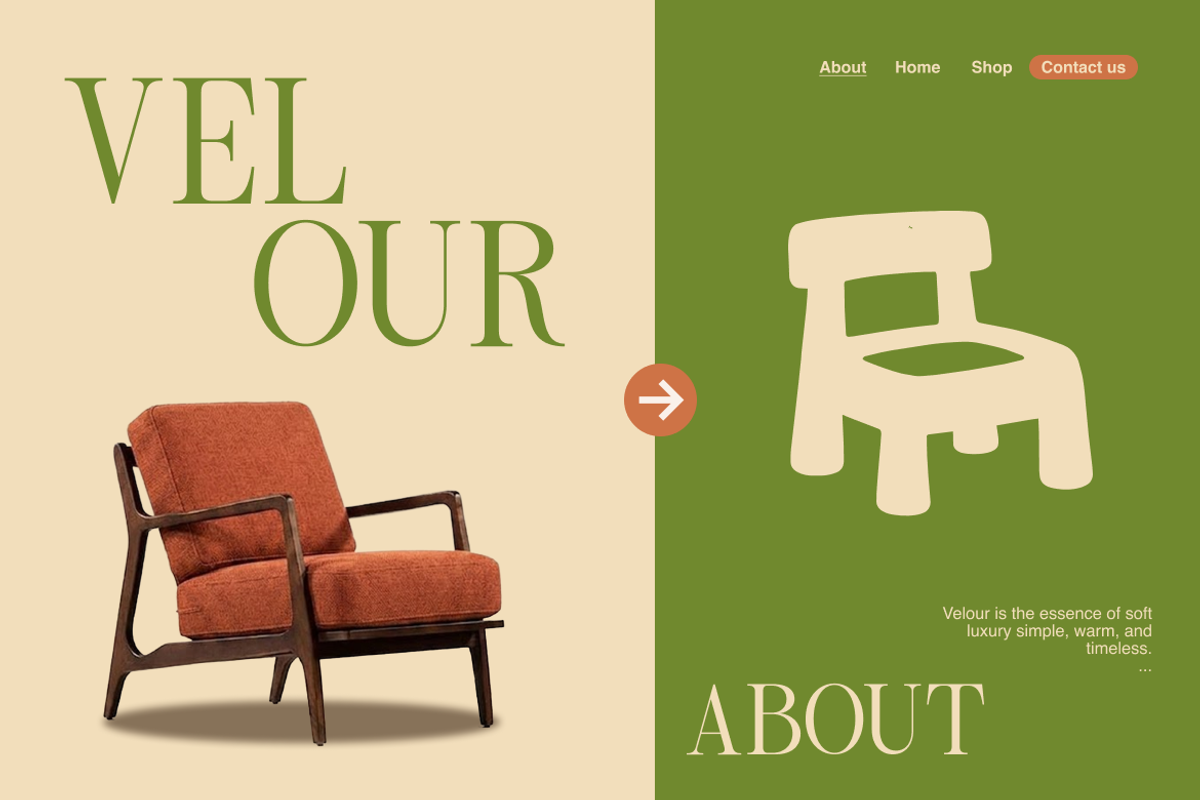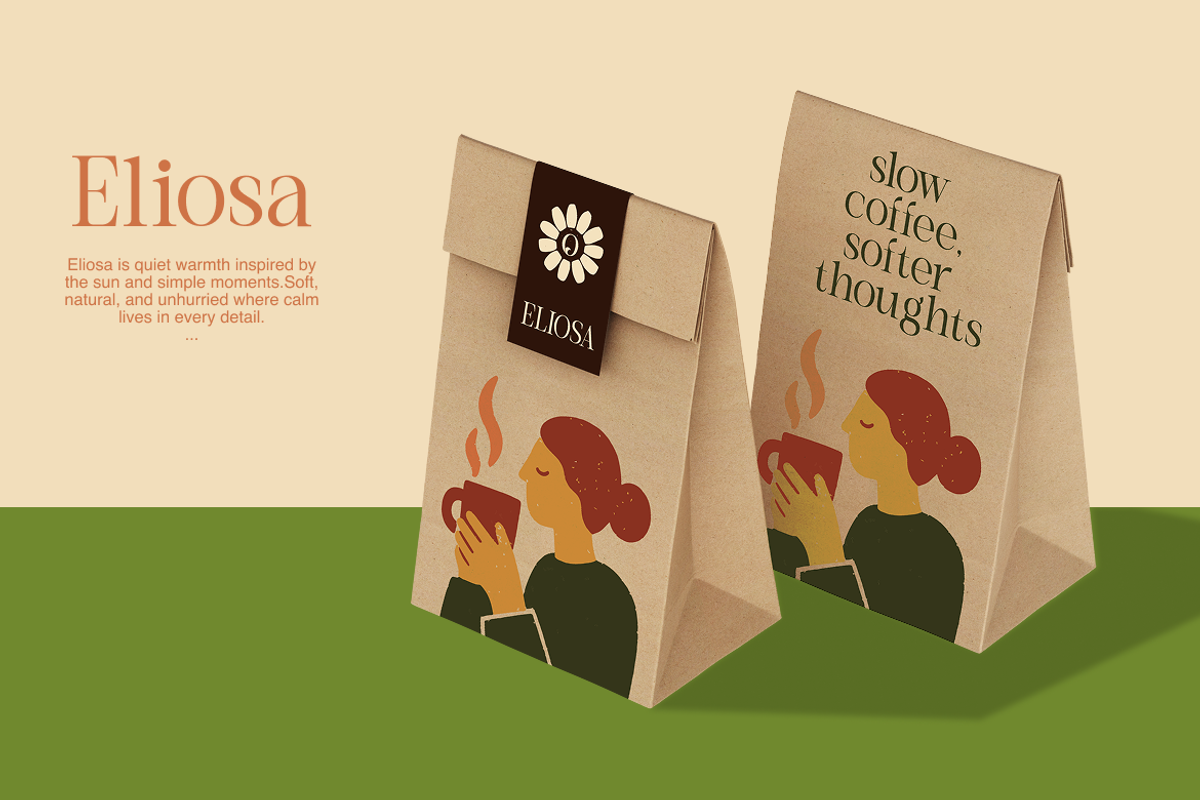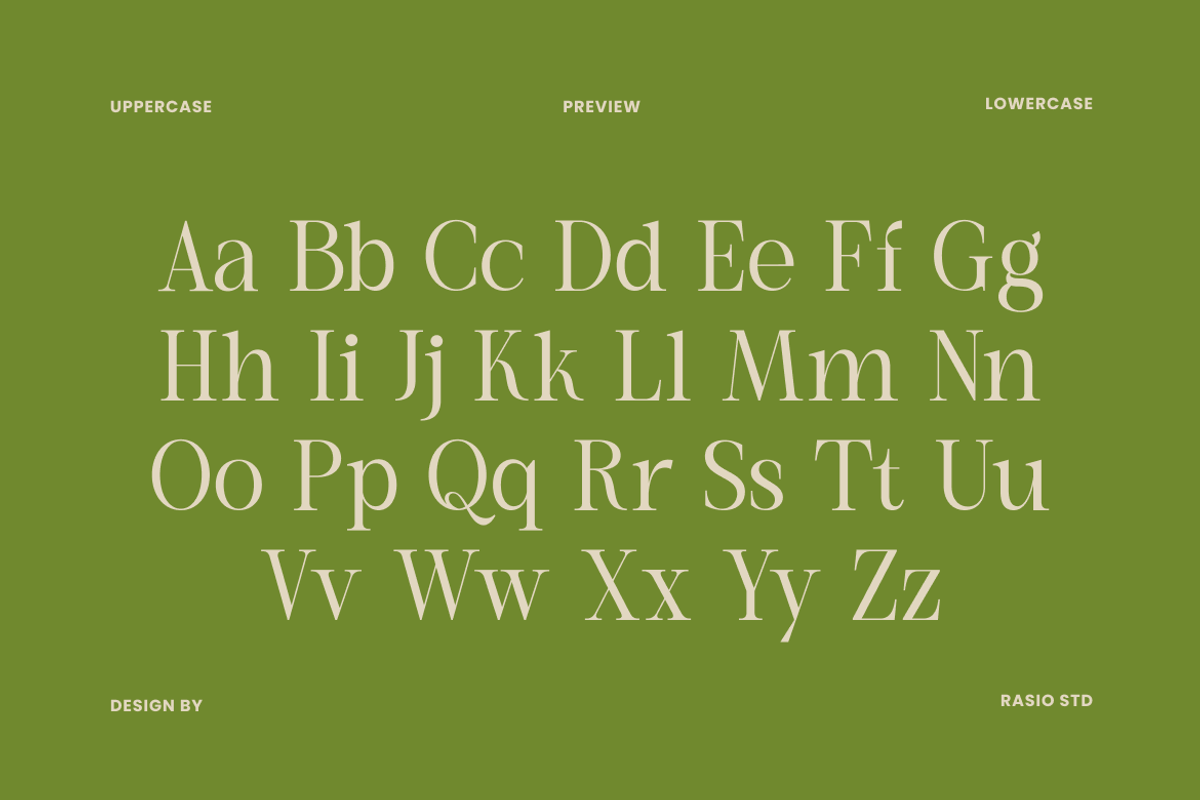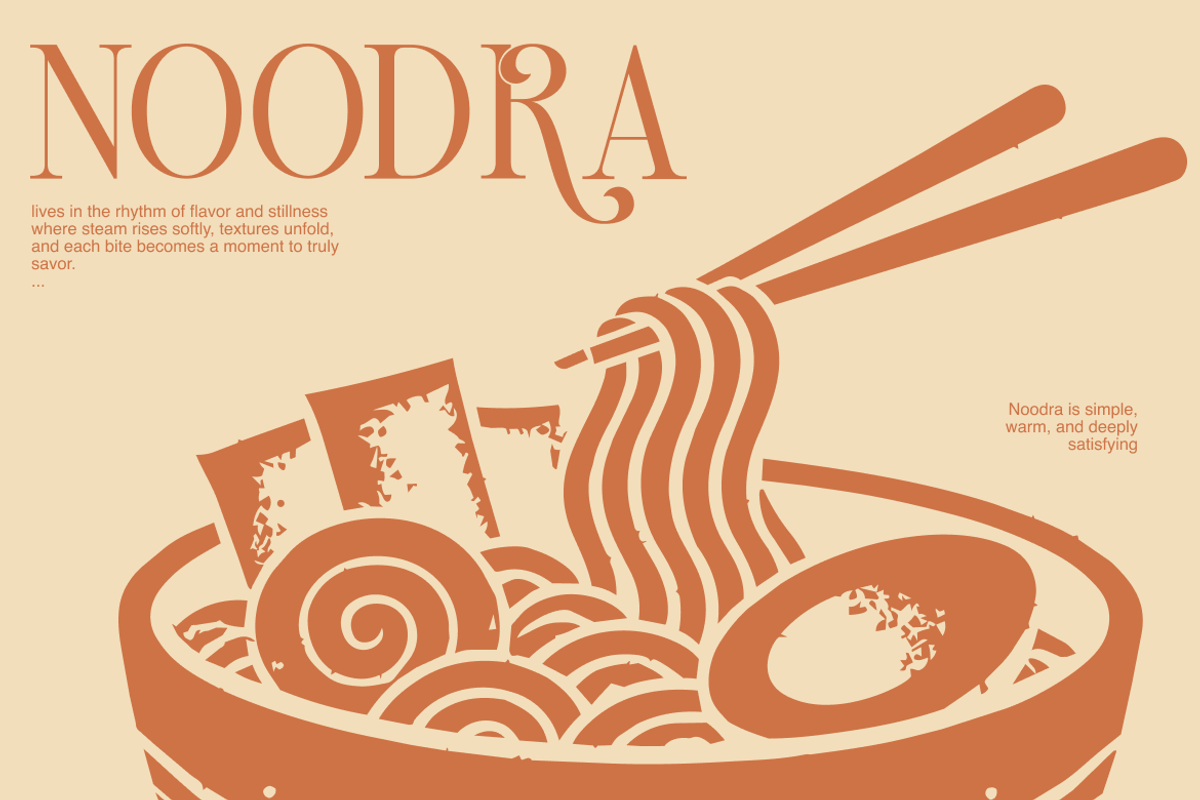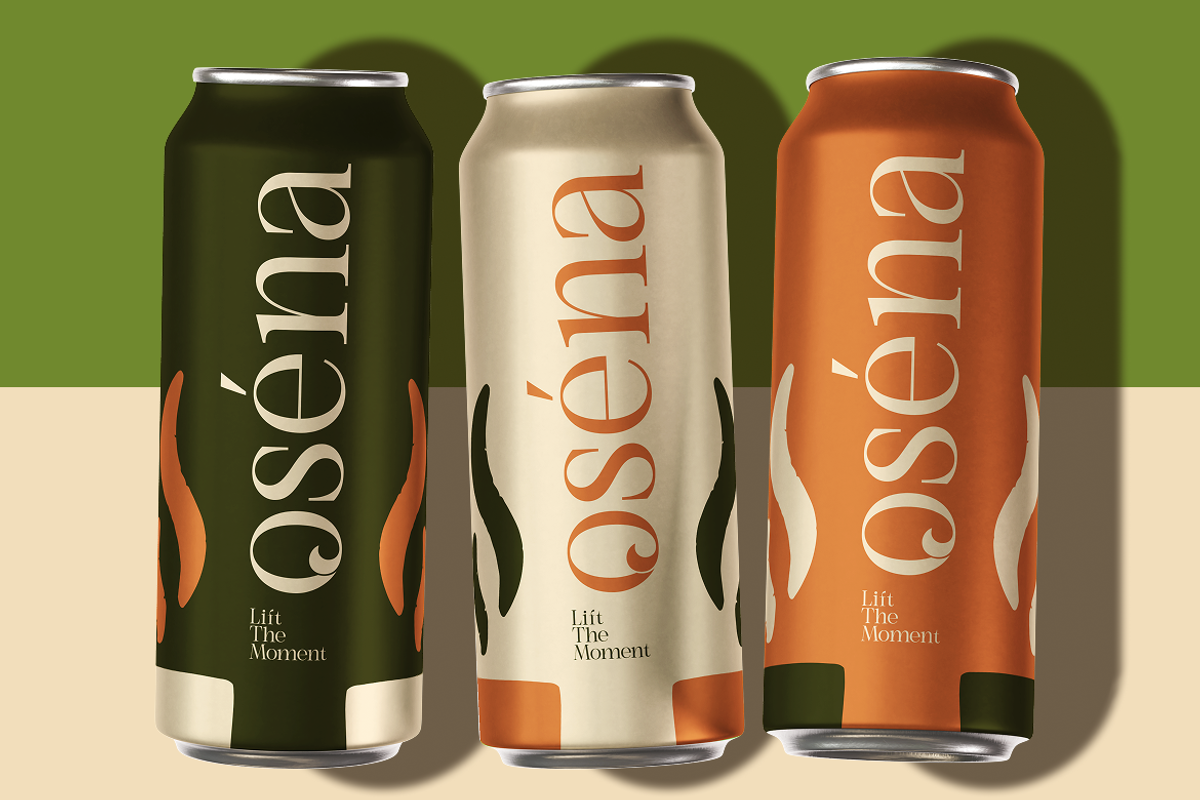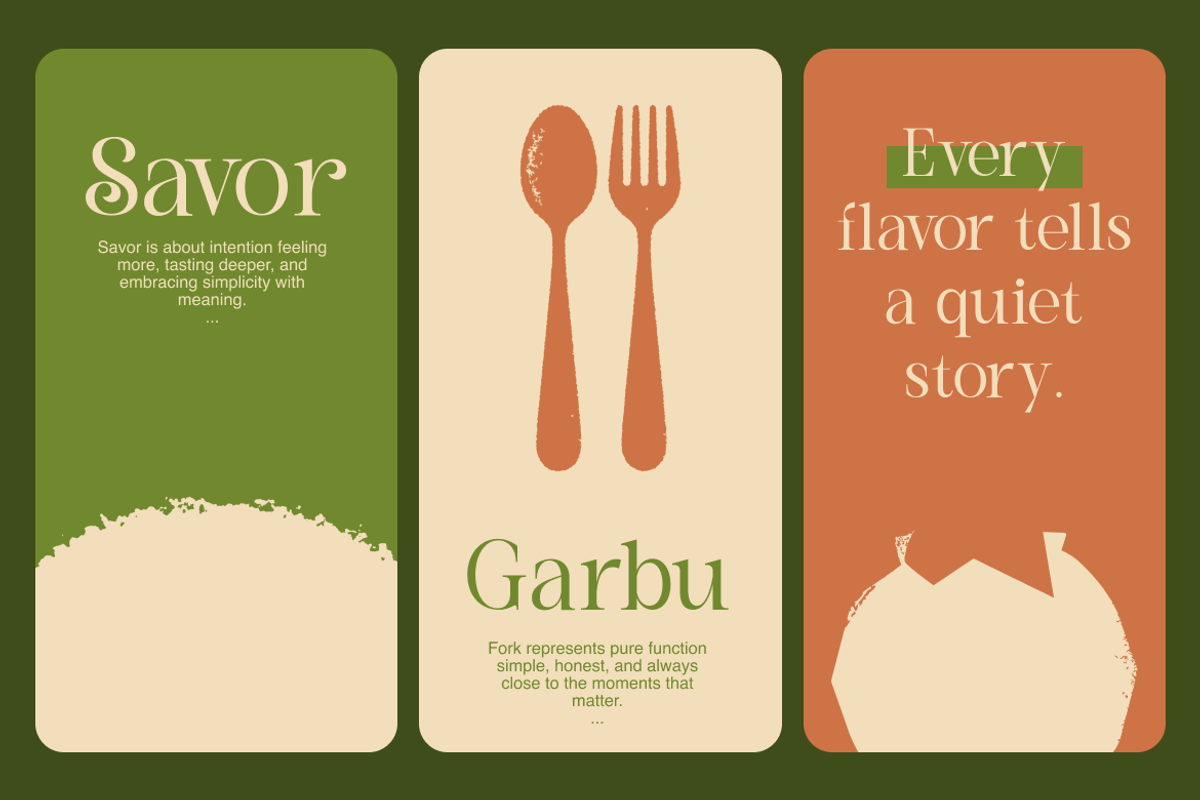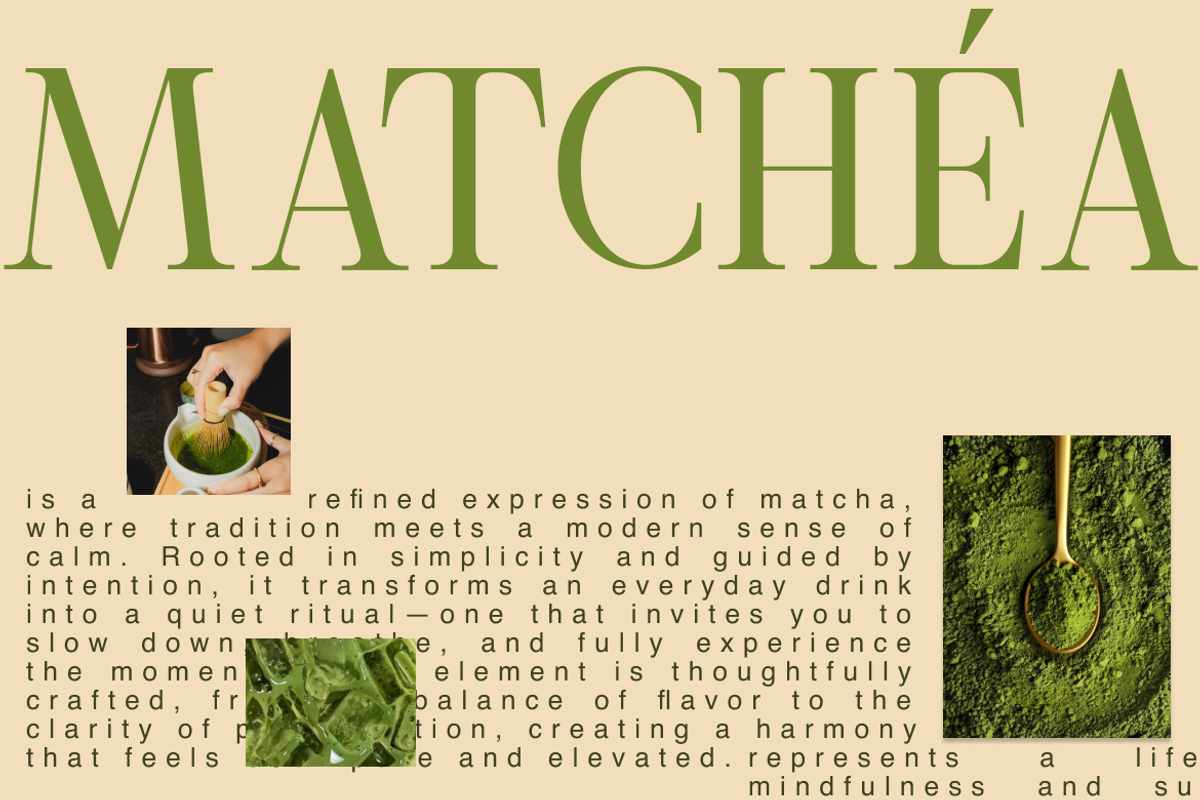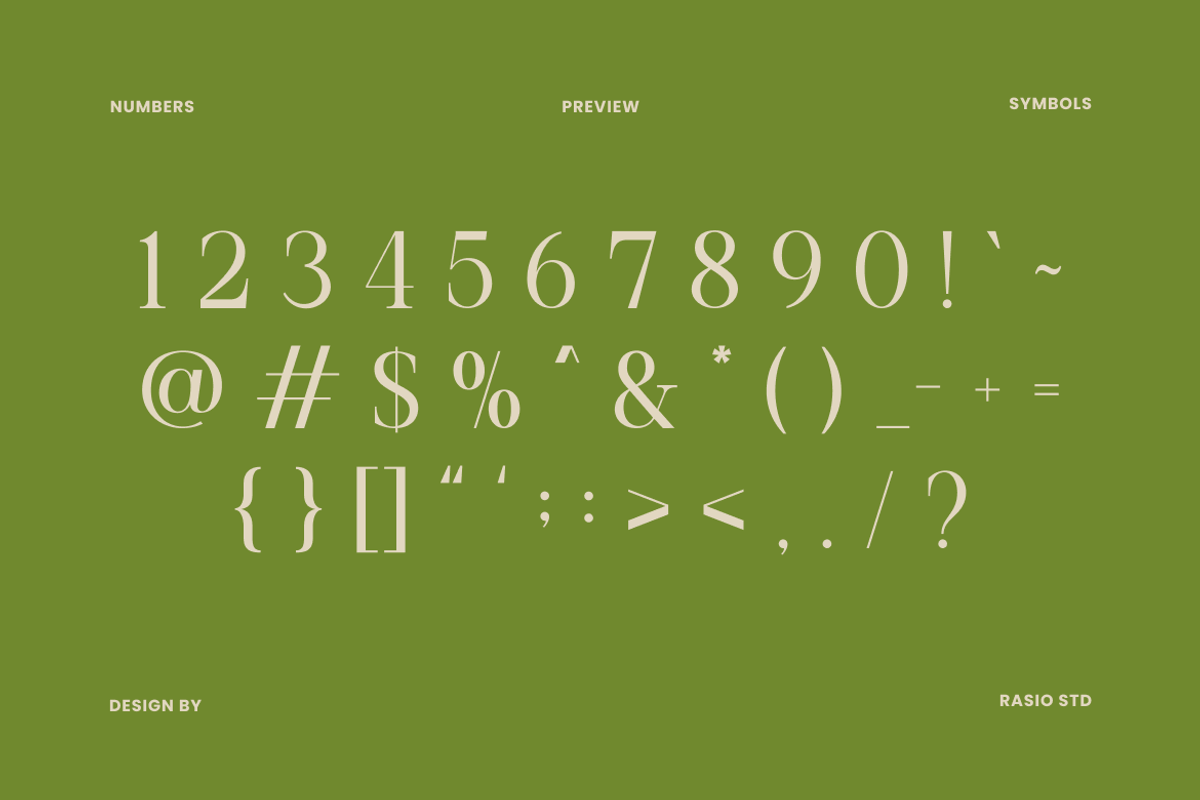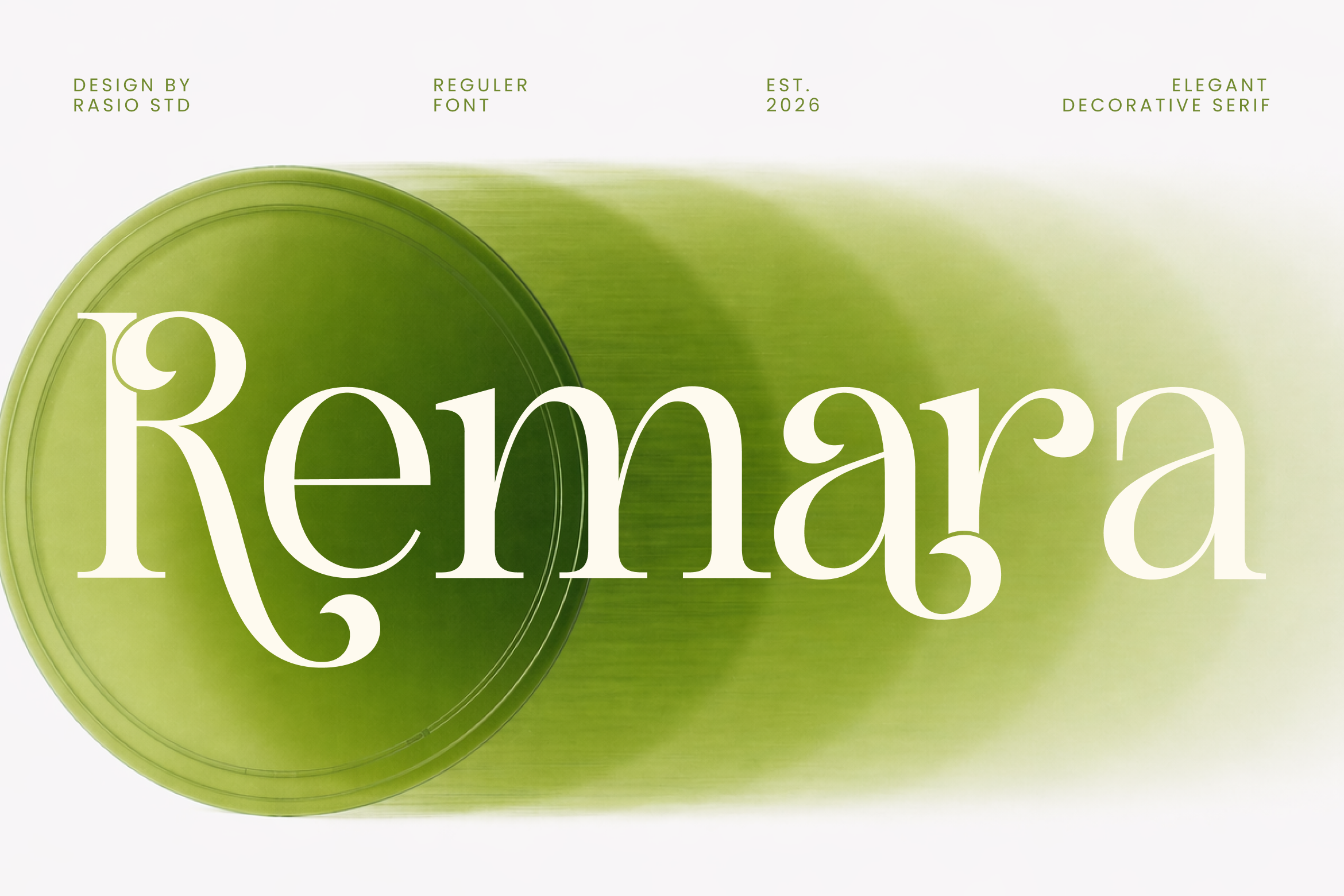
Remara Elegant Decorative Serif Font
Remara Elegant Decorative Serif showcases refined high-contrast letterforms with graceful curves, delicate ligatures, and expressive decorative serif details. The font features uppercase and lowercase sets, numerals, punctuation, and stylistic alternates, crafted for sophisticated editorial and branding compositions. Its elegant serif structure blends modern luxury with subtle vintage character, making it suitable for premium visual identities, packaging, and artistic layouts. Designed for creators seeking timeless beauty, decorative sophistication, and elevated typography with a soft luxurious presence.
Relevance and Use Cases is perfect for luxury branding, editorial layouts, beauty packaging, fashion campaigns, boutique logos, restaurant menus, wedding stationery, premium product labels, magazine headlines, social media branding, and elegant visual identities requiring refined decorative serif typography.
- Elegant decorative serif with refined high-contrast strokes
- Graceful curved terminals and distinctive ornamental details
- Delicate ligature-inspired forms with soft classical influence
- Balanced proportions with sophisticated spacing for display compositions
- Timeless luxury character suited for editorial and premium branding
- Luxury brand identity systems with refined and sophisticated character
- Editorial magazines, book covers, and elegant typography layouts
- Premium product packaging and label design with artistic appeal
- Wedding stationery, invitations, and boutique branding materials
- Social media templates and marketing visuals with timeless decorative elegance